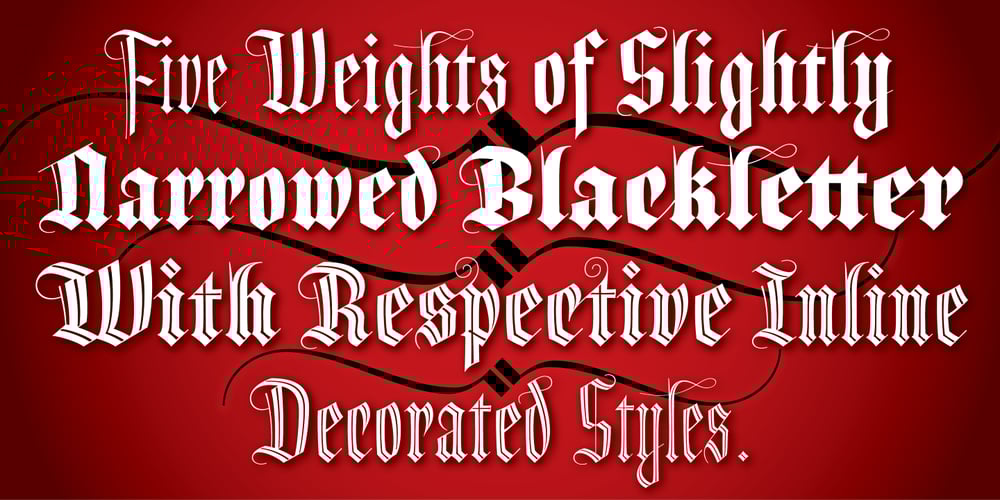
Dracula Font Family was designed by published by Storm Type Foundry. Dracula contains 10 styles and family package options. The best way to radicalize your typographic expression is to use Blackletter! Gothic calligraphy had been used throughout all historical periods without much of the principal development the Latin typefaces underwent. However, since the invention of movable type, even now its slight variations over time can be seen. Blackletters are always used where emotions are required, be it spiritual literature, romantic novels, decadent poetry or extreme music. Dracula is a typeface dedicated to classical horror. I started to draw its letters along with my illustrations for Argo publishers in spring 2017. I needed a specific typeface for book cover and chapter titles to emphasize the mysterious atmosphere of the text. Sharp teeth and claws on a thin blackletter skeleton shall remind of the early vampirism in literature. Its slightly narrowed face enhances a thrilling feel of anguish and despair, whereas the darkest cut may work well on funeral announcements.